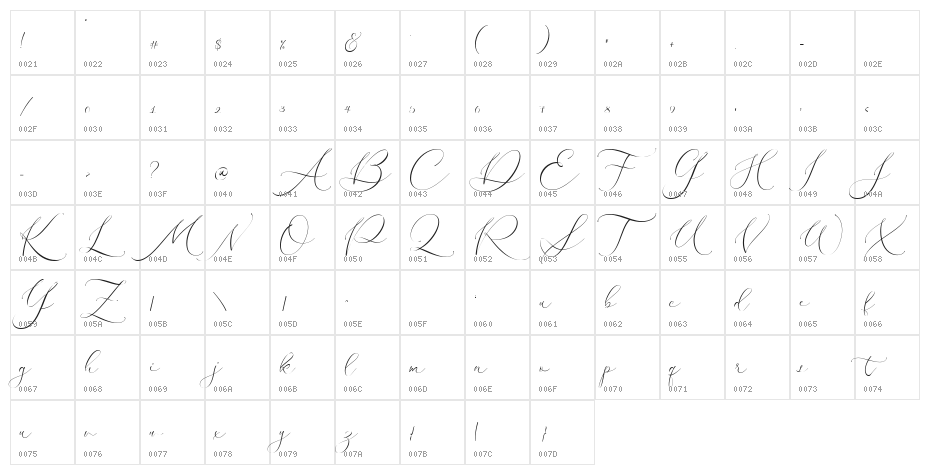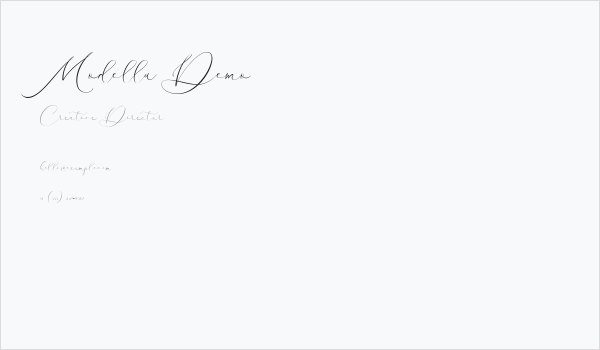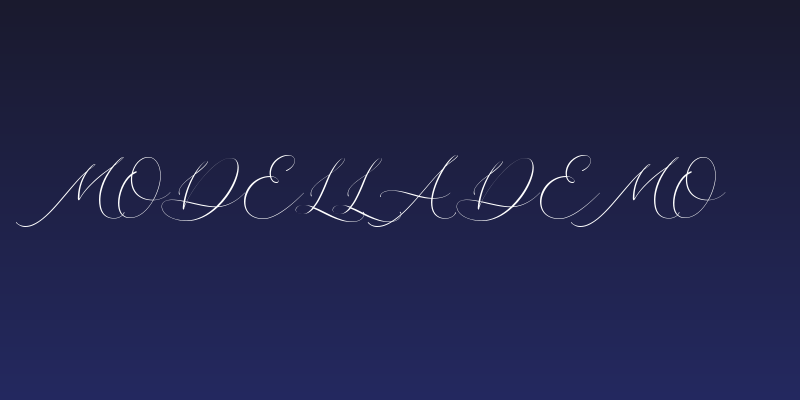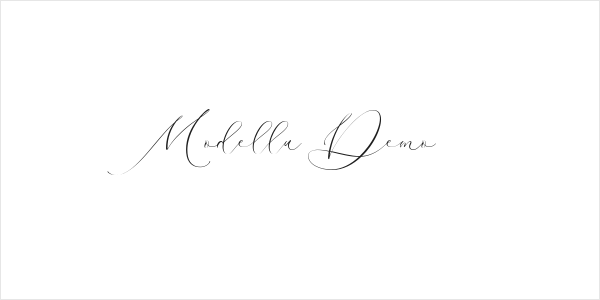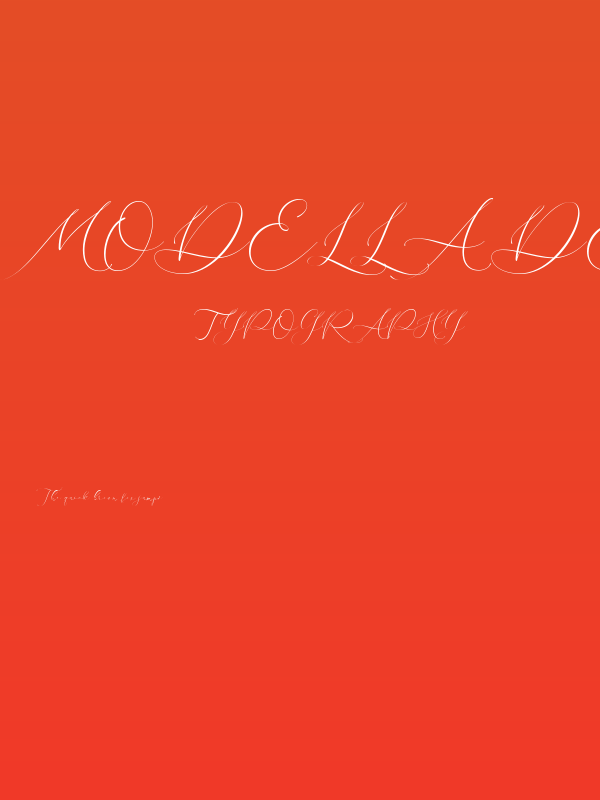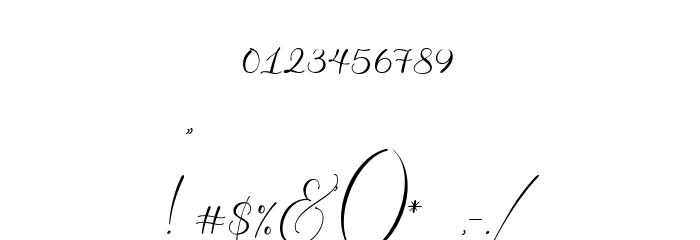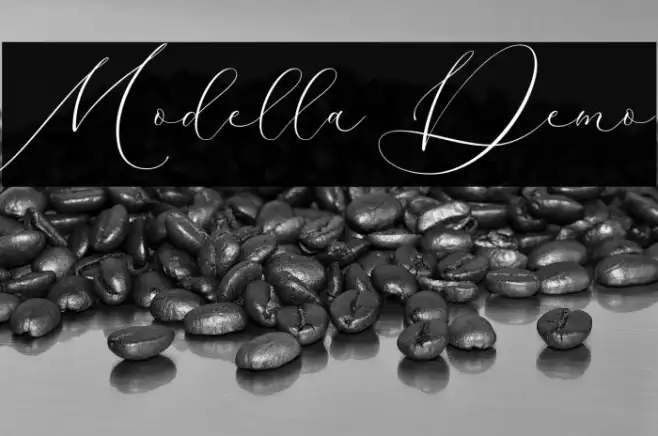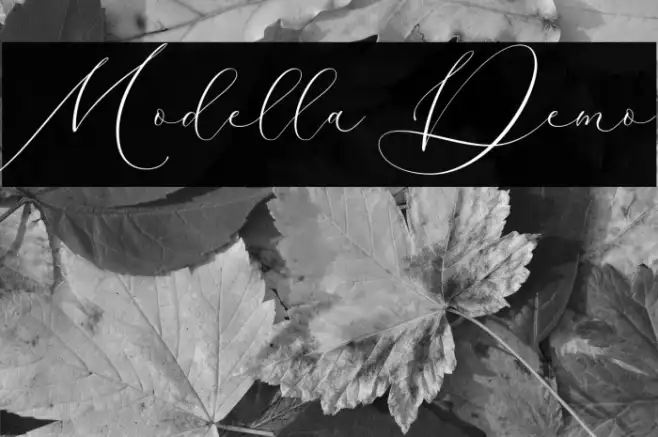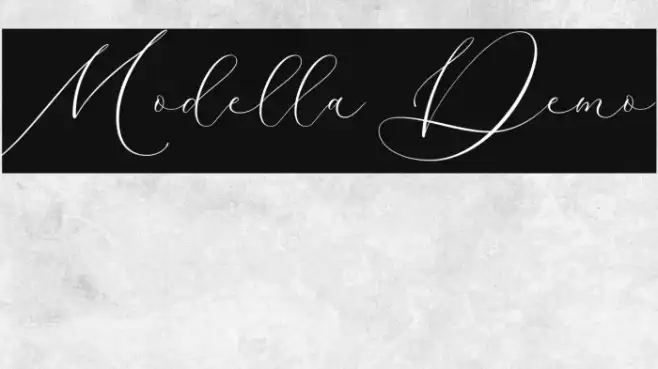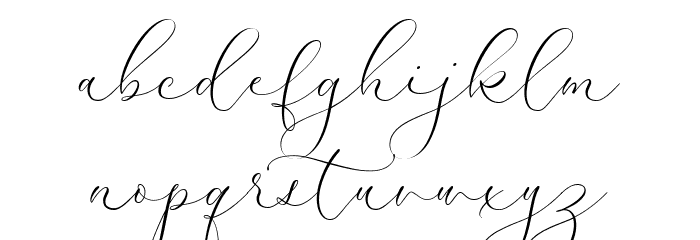
Modella Demo Font
Modella Demo Description
This elegant script font features flowing, cursive letterforms with a refined and sophisticated appearance. The uppercase letters are characterized by their graceful loops and swashes, creating a sense of movement and fluidity. The lowercase letters maintain a consistent style, with delicate connections between each character. The numerals are styled to match the overall aesthetic, offering a cohesive look. Special characters are thoughtfully designed, ensuring they complement the script's elegance. This font exudes a sense of luxury and is perfect for projects that require a touch of class and sophistication.
| Proposed Projects | Ideal for wedding invitations, luxury branding, elegant stationery, and high-end product packaging. |